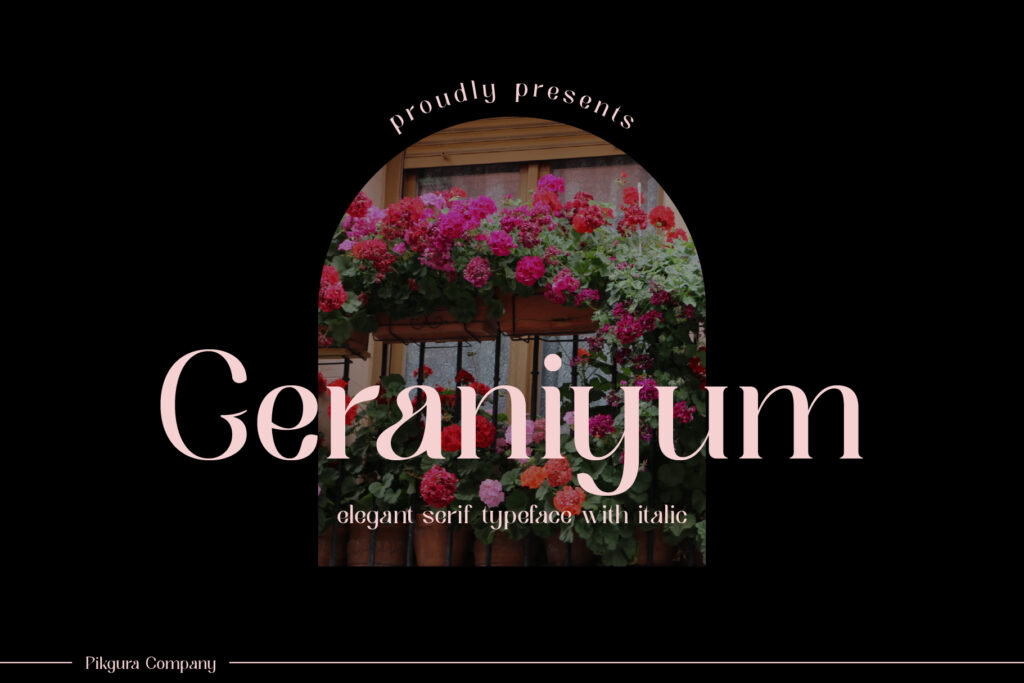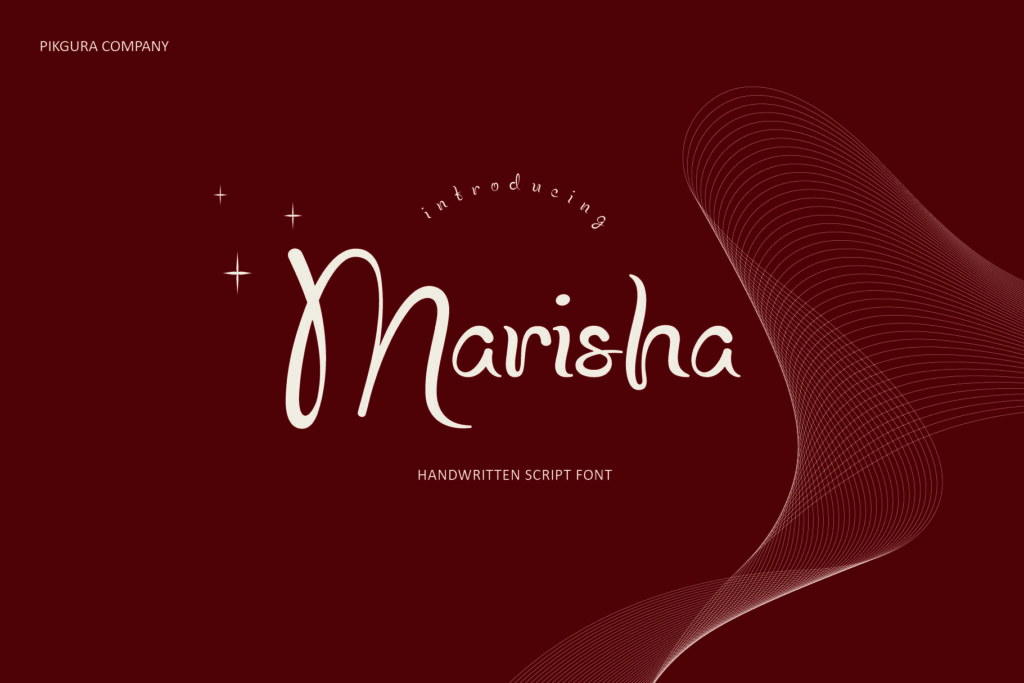
Elegant fonts play a crucial role in luxury branding, conveying sophistication, exclusivity, and timeless appeal. High-end brands often use refined serif fonts like Didot or Bodoni to evoke a sense of heritage and prestige, while sleek sans-serifs such as Avenir or Futura create a modern, minimalist aesthetic. The right typeface enhances brand identity, making it instantly recognizable and reinforcing the perception of quality and elegance. Incorporating luxury fonts into digital branding can significantly enhance your brand’s image and appeal. Here are some effective strategies to achieve this.
1. Choose the Right Fonts
- Select Elegant Typefaces:
Opt for fonts that convey sophistication, such as Bodoni, Didot, or Garamond for serif options, and Futura or Montserrat for sans-serif choices. These fonts are well-regarded in luxury branding for their refined aesthetics and readability
- Consider Font Pairings:
Use complementary font pairings to create a cohesive look. For instance, pairing a classic serif font with a modern sans-serif can balance elegance with contemporary appeal
2. Maintain Readability
- Prioritize Legibility:
Ensure that the chosen fonts are readable across various devices and sizes. This is crucial for maintaining a professional appearance and ensuring that your message is effectively communicated
3. Align with Brand Personality
- Reflect Brand Values:
Your font choices should resonate with your brand’s identity. For example, if your brand embodies exclusivity and luxury, select fonts that evoke these feelings. Conduct competitor research to understand how similar brands utilize typography
Here’s recommendation for Elegant Luxury branding
4. Consistency Across Platforms
- Uniform Application:
Maintain consistency in font usage across all digital platforms, including websites, social media, and marketing materials. This helps reinforce brand identity and enhances recognition
5. Utilize Typography Strategically
- Enhance User Experience:
Use typography not just for aesthetics but also to improve user experience on digital platforms. Well-chosen fonts can guide users’ attention and make navigation smoother
6. Test and Iterate
- Gather Feedback:
After implementing luxury fonts in your branding, seek feedback from your audience. This can provide insights into how well the typography resonates with them and whether it enhances their perception of your brand
By thoughtfully incorporating luxury fonts into your digital branding strategy, you can create a sophisticated and memorable brand presence that appeals to high-end consumers.
In luxury branding, every detail matters—and typography is no exception. Whether classic serifs, modern sans-serifs, or graceful scripts, the right typeface communicates prestige and refinement, making it an essential element of a high-end brand’s visual identity.